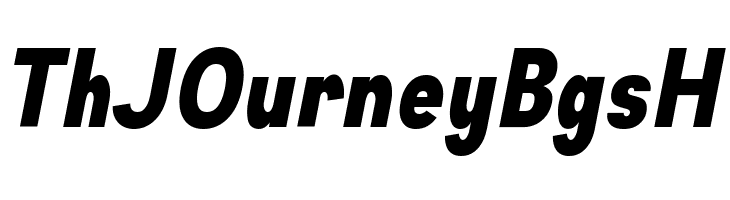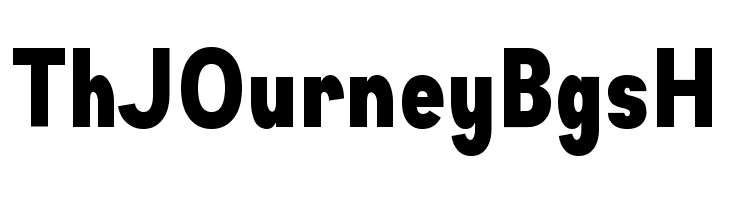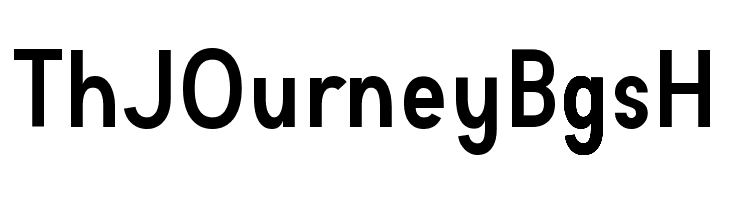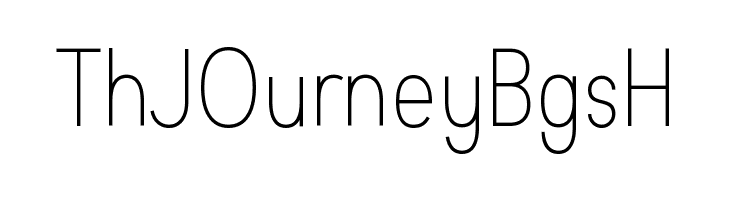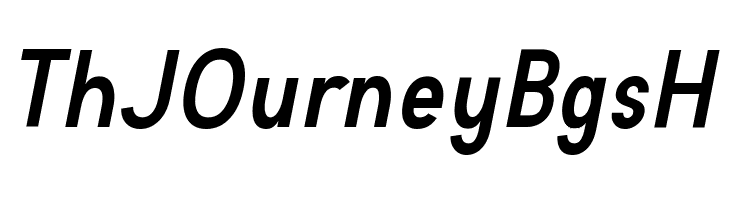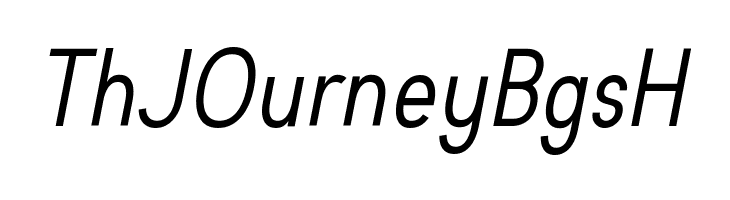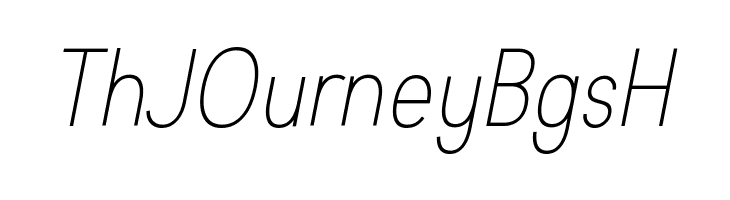
• Aprikas Black Demo
A bold, modern font with thick strokes and a strong presence.
• Aprikas Black Italic Demo
Bold, italicized font with thick strokes and a dynamic slant.
• Aprikas Bold Demo
A bold, modern sans-serif font with clean lines and uniform stroke width.
• Aprikas Bold Italic Demo
• Aprikas Italic Demo
A modern, italicized font with a clean and elegant style.
• Aprikas Light Demo
A clean, modern sans-serif font with a light weight and uniform appearance.
• Aprikas Light Italic Demo
A sleek, light italic font with a modern and elegant design.
• Aprikas Regular Demo
A clean, modern sans-serif font with uniform stroke width and excellent readability.